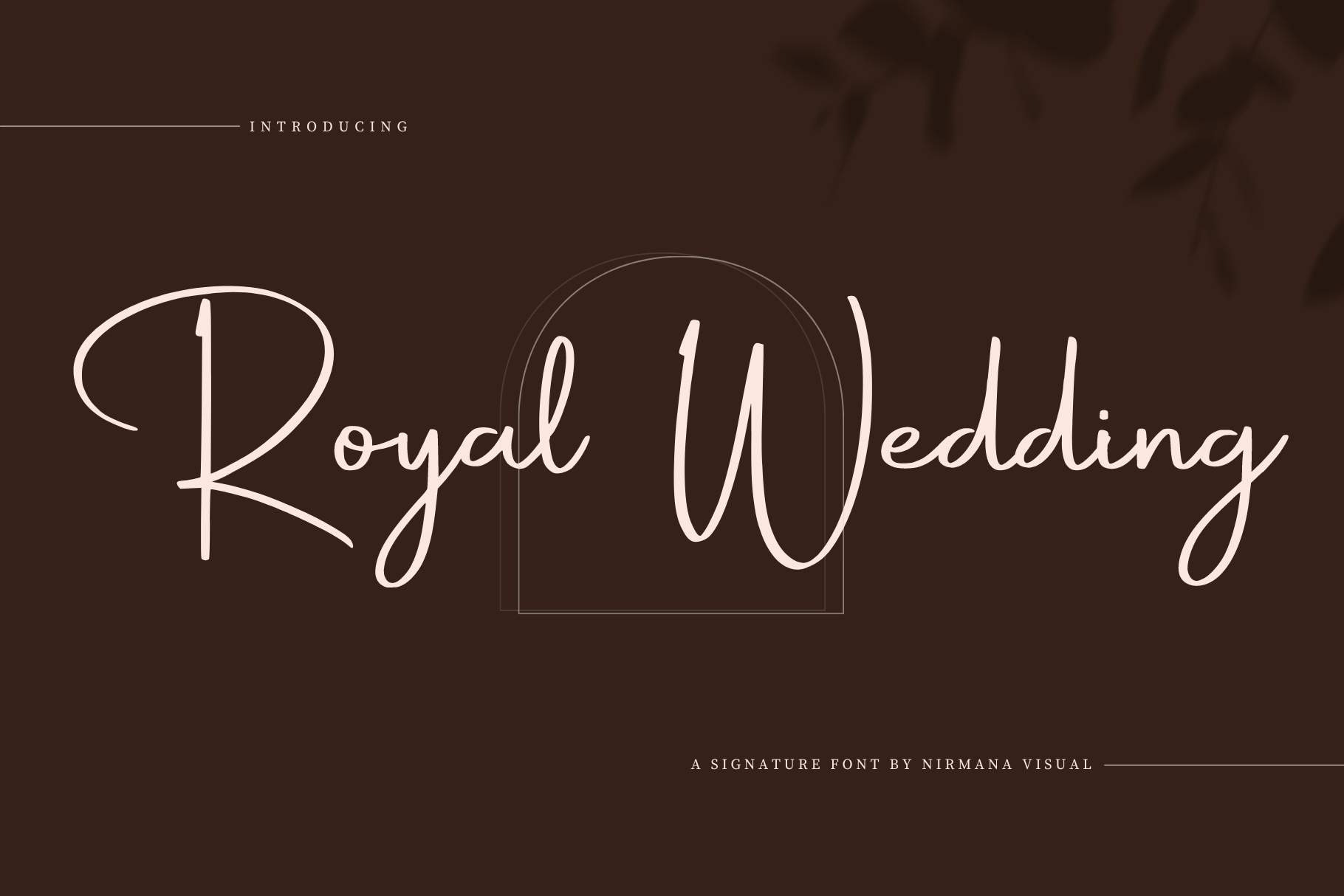
Royal Wedding - Script Font
Royal Wedding is a Natural handwriting modern script calligraphy font.
full set of lowercase and uppercase letters, numerals and punctuation, multilingual symbols.